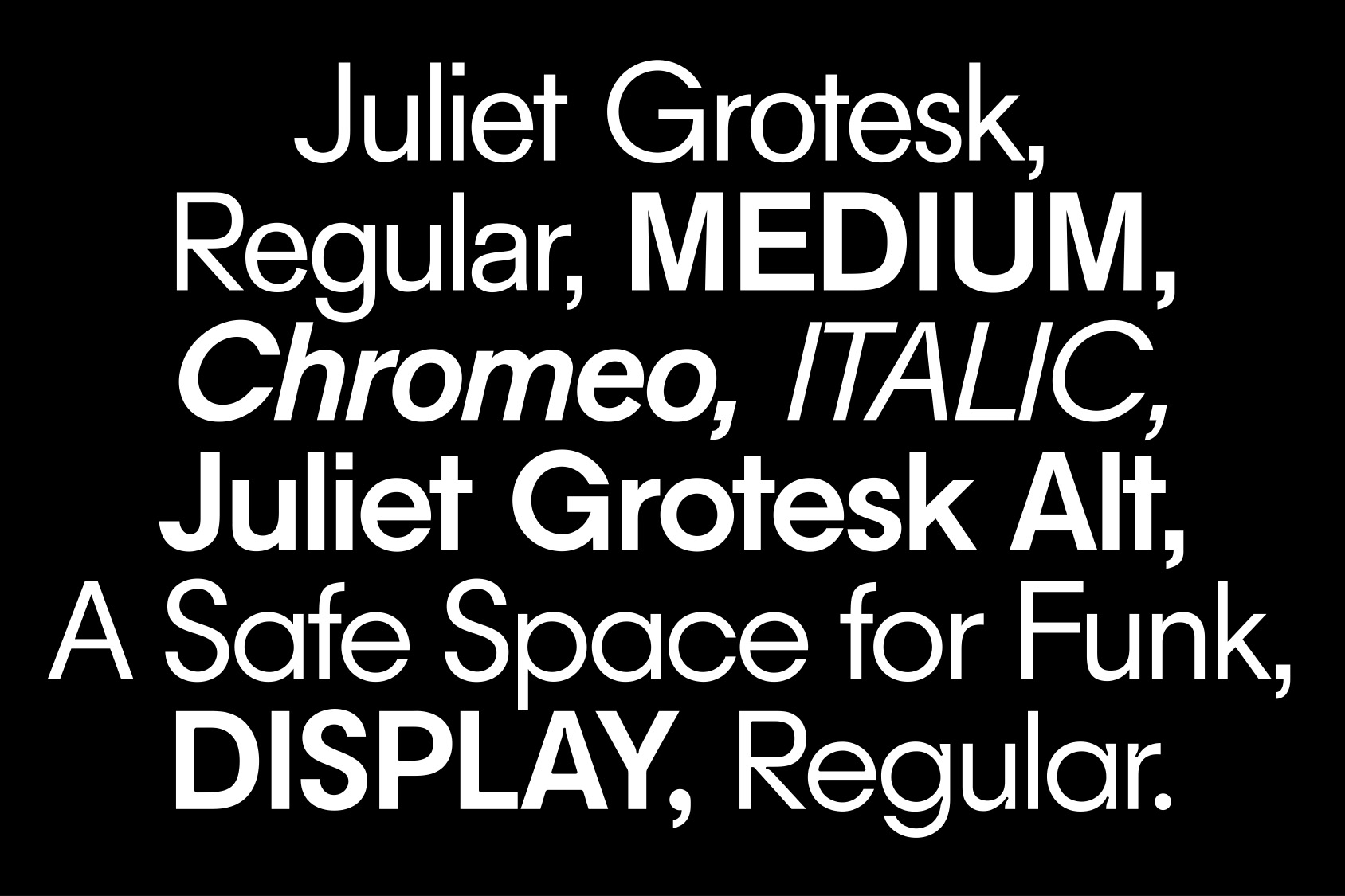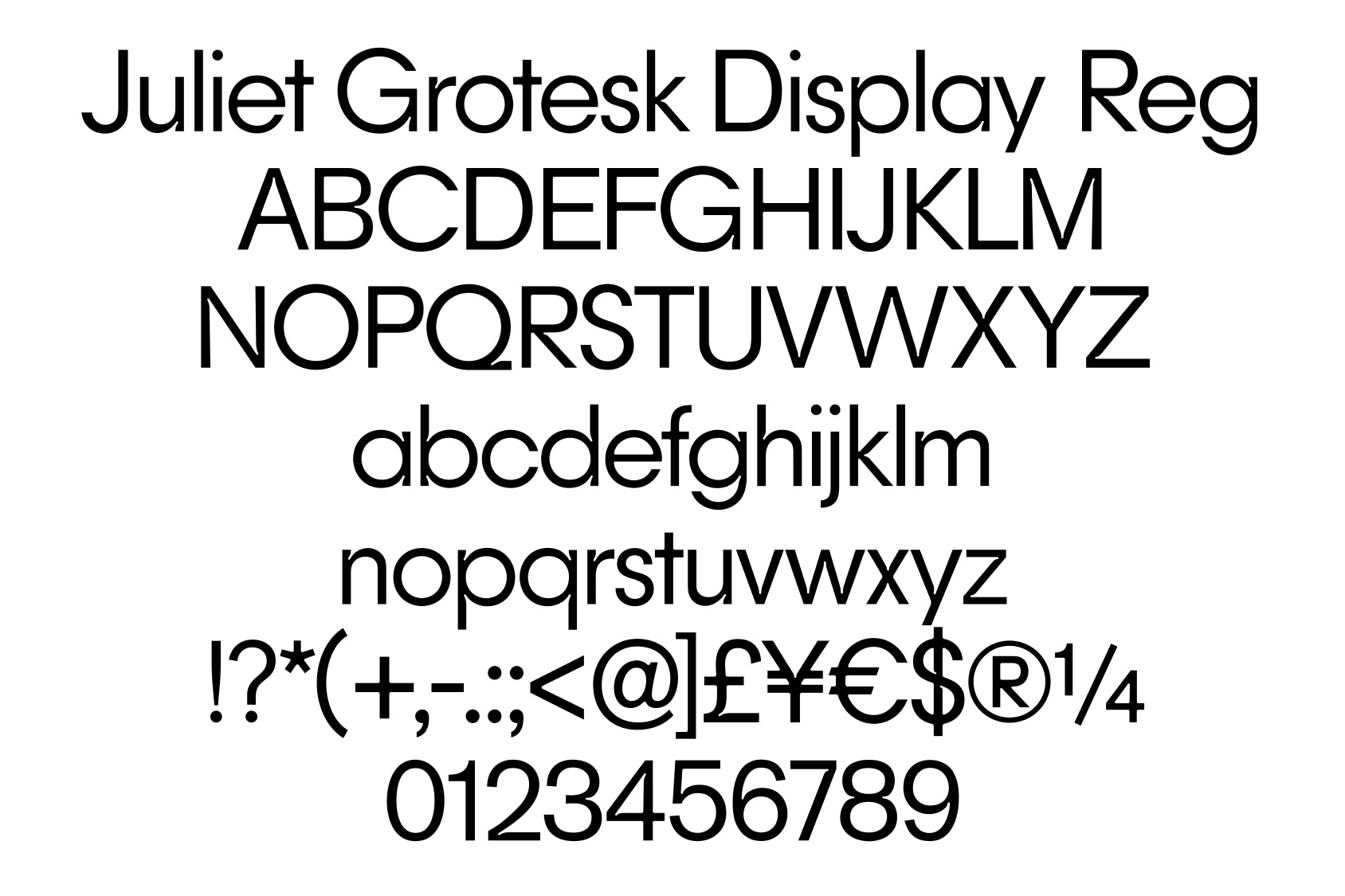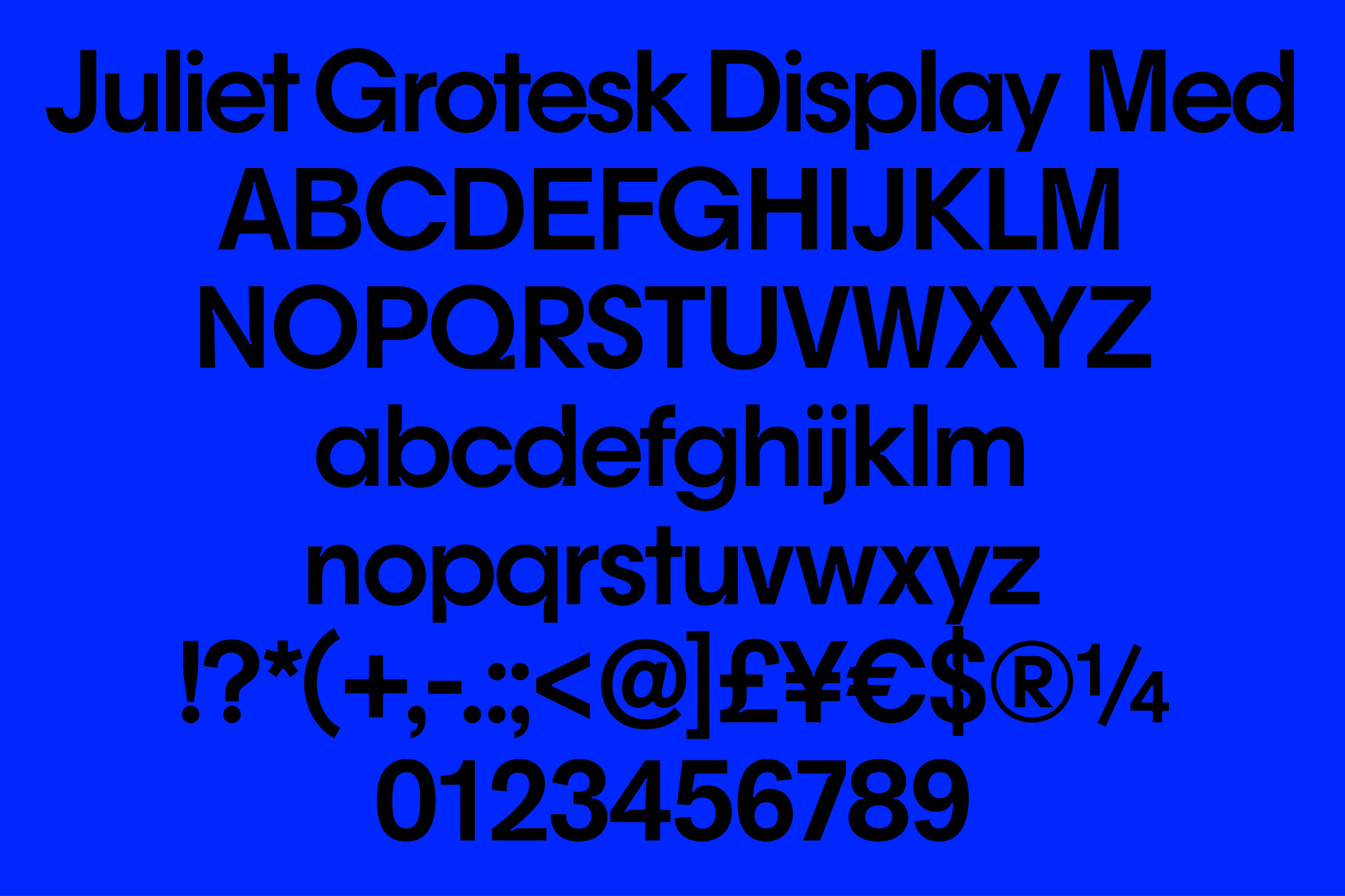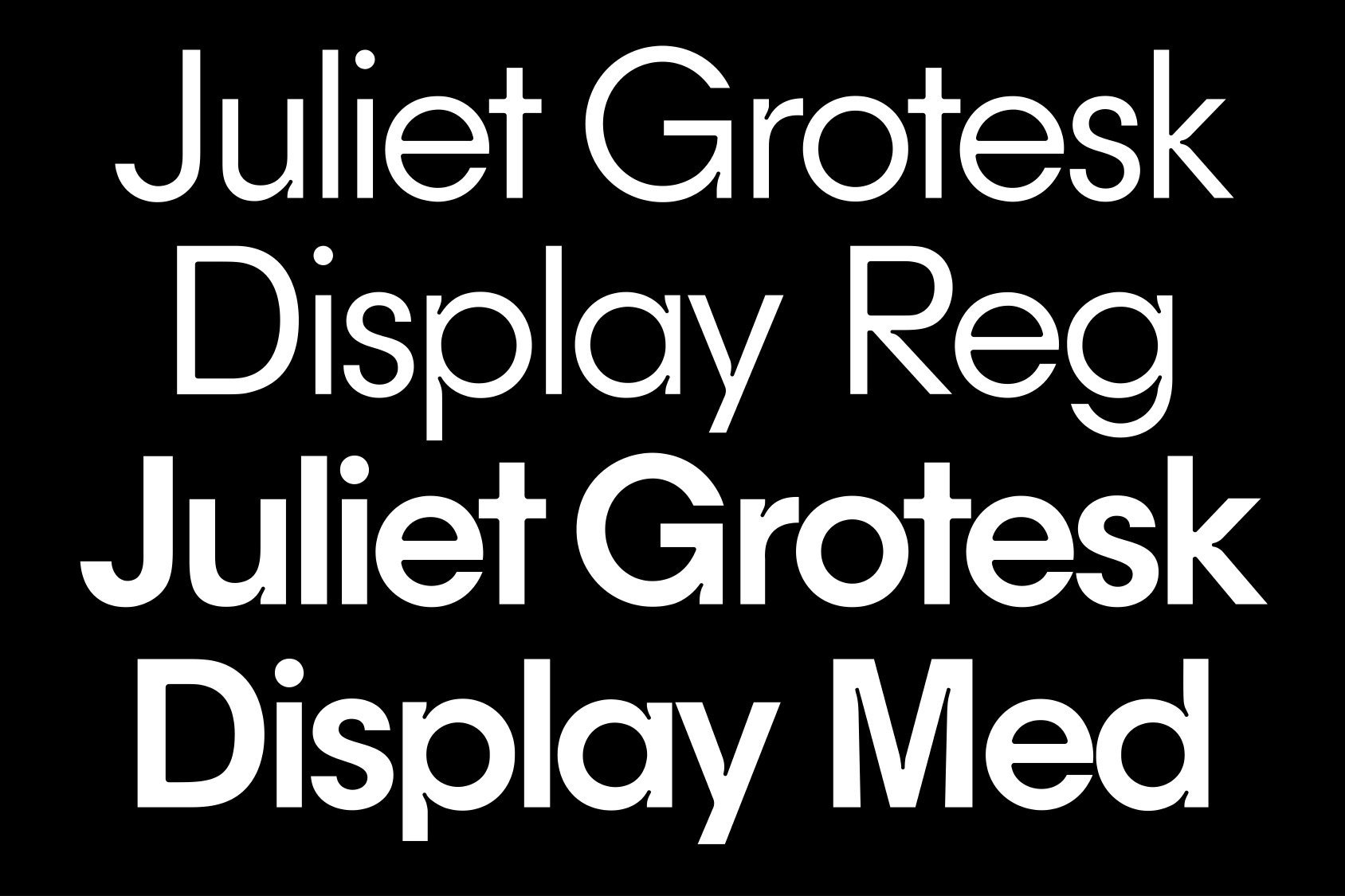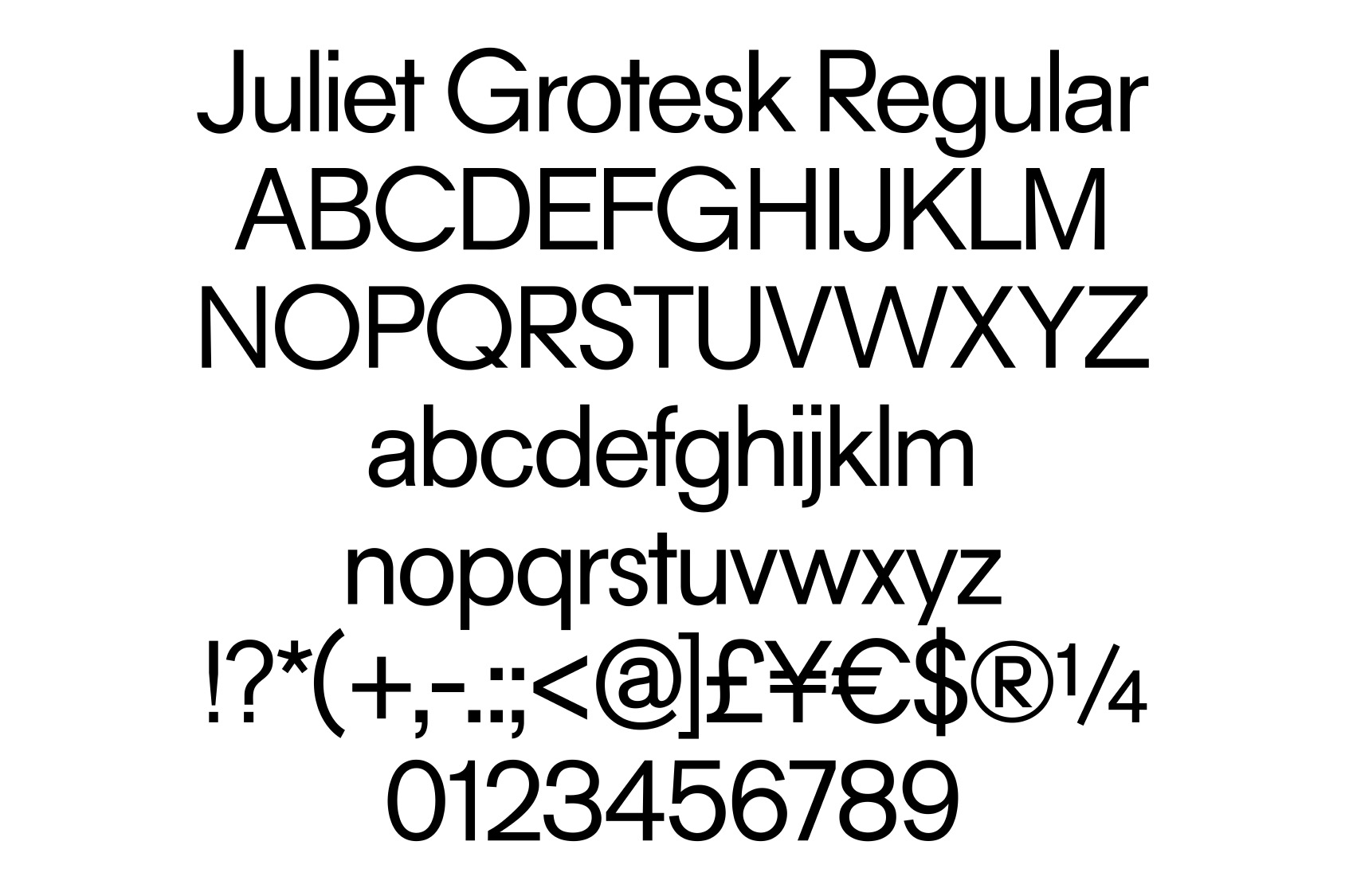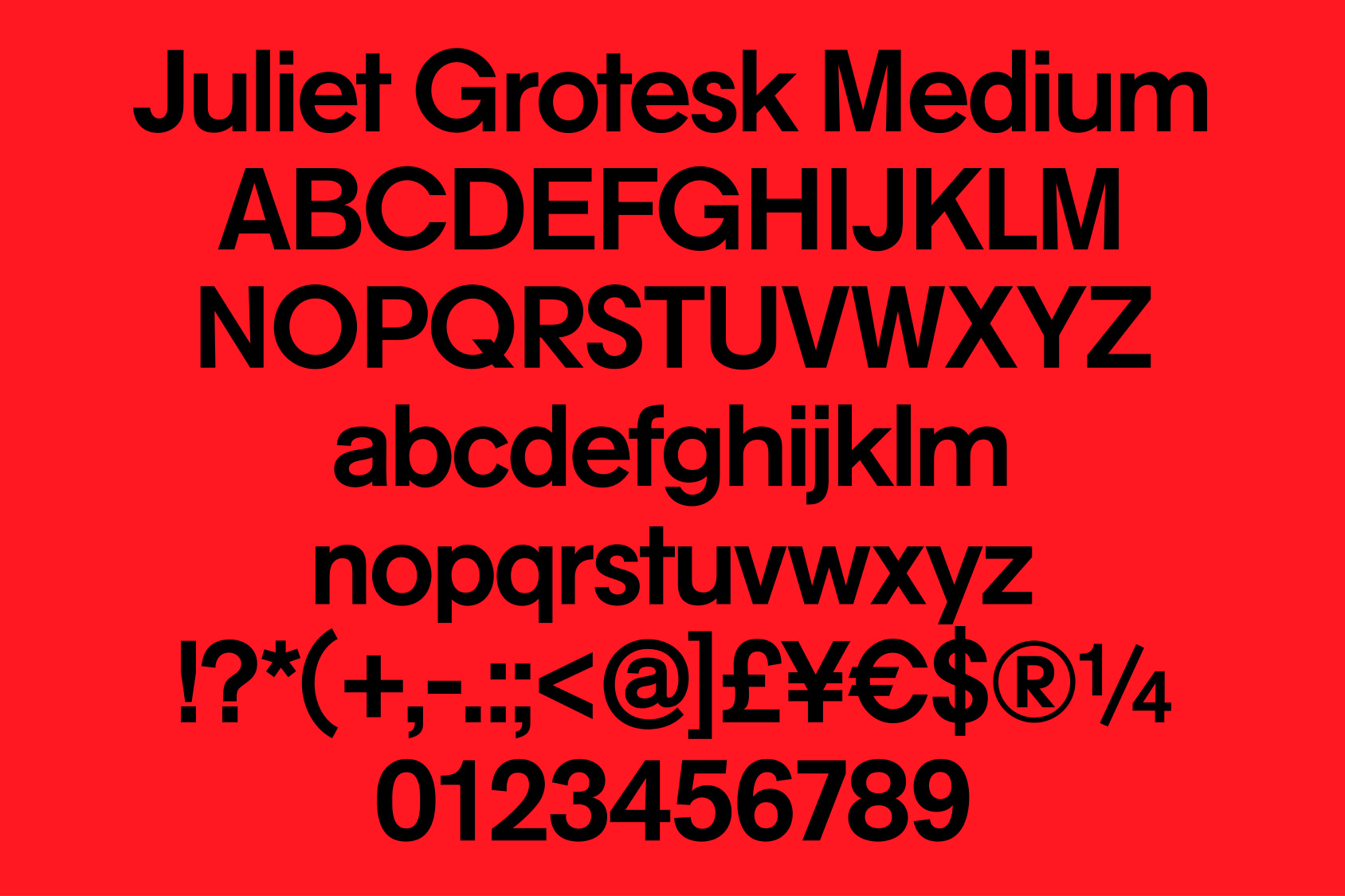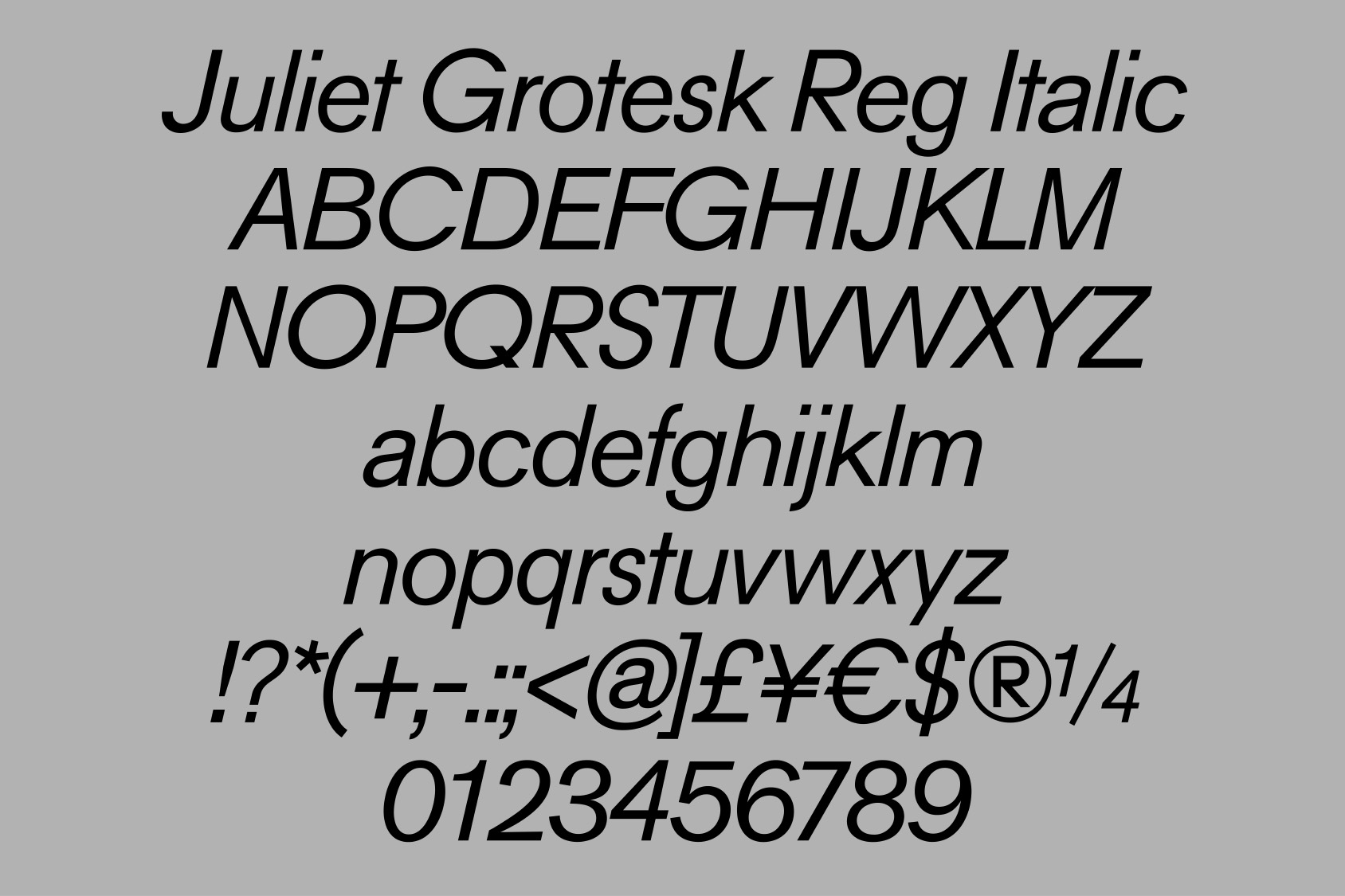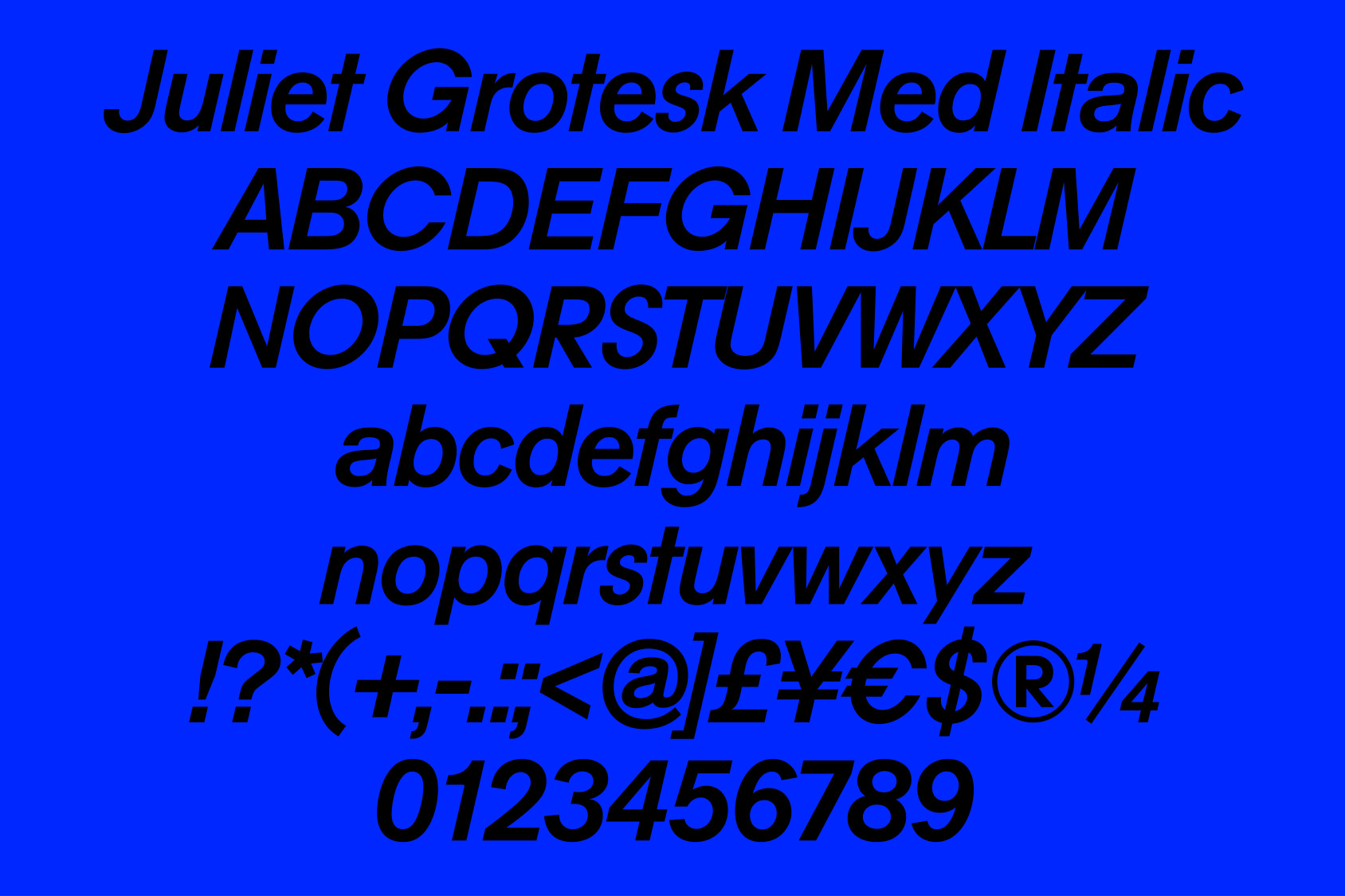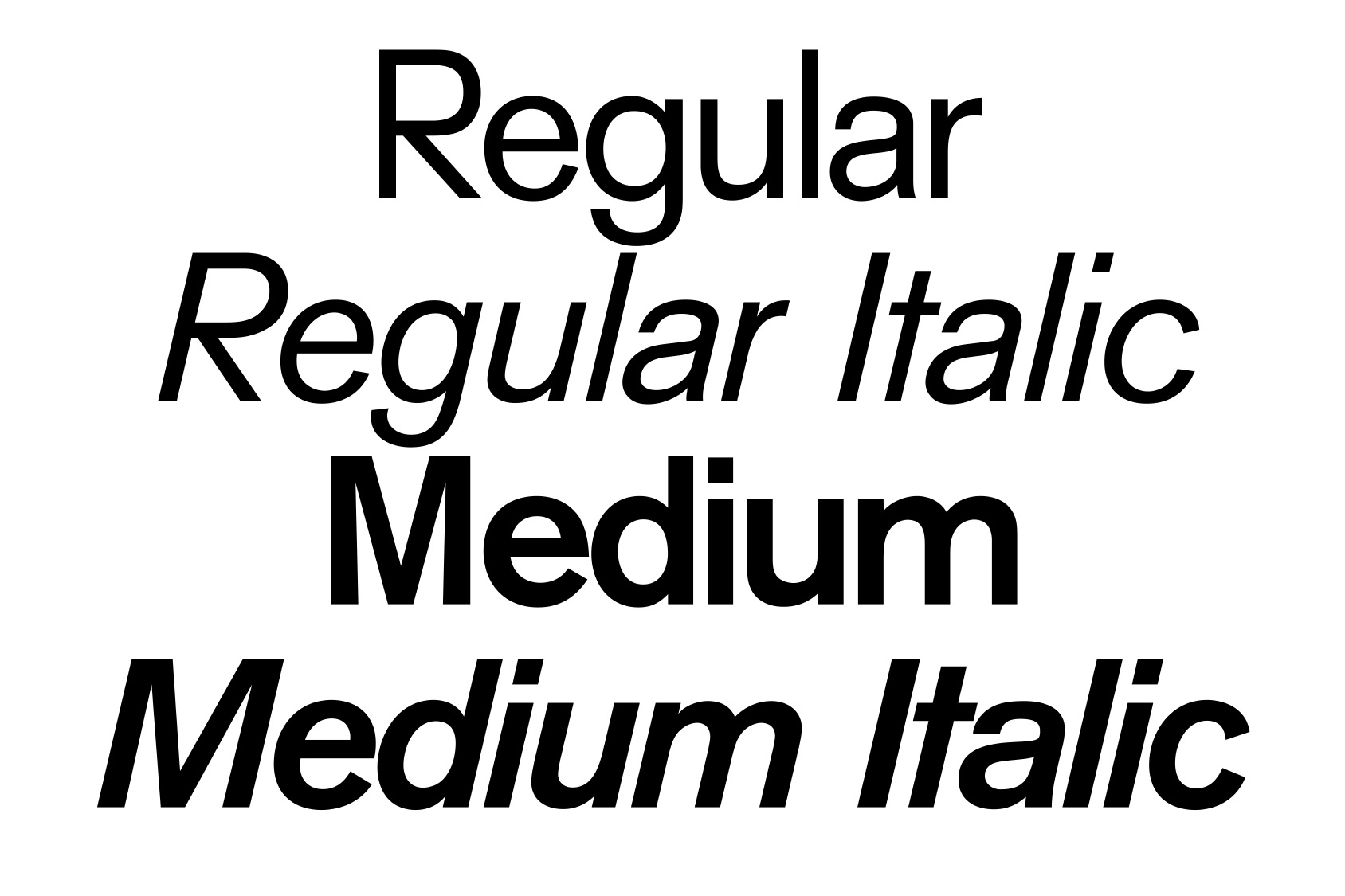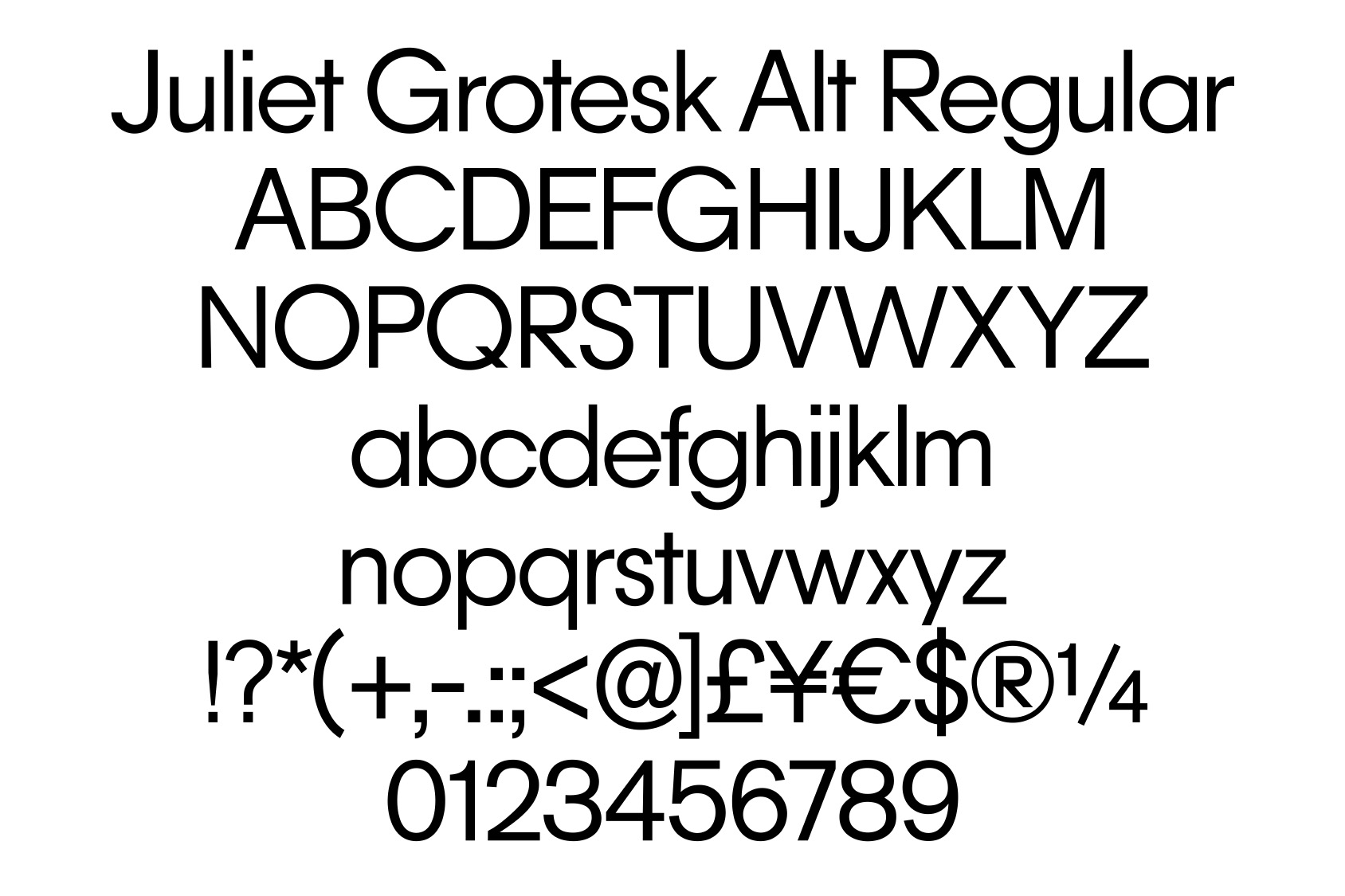
Juliet Grotesk Typeface
Juliet Grotesk is the typeface we developed for the record label Juliet Records. Created in the style of classic Swiss/German sans-serif typefaces like Akzidenz-Grotesk and Univers, it also draws inspiration from geometrical headline fonts like Avant Garde. It comes in 10 different weights and is available as single fonts or sets. Learn more about the font and the development in the Communication Material section on the Juliet Record Website.